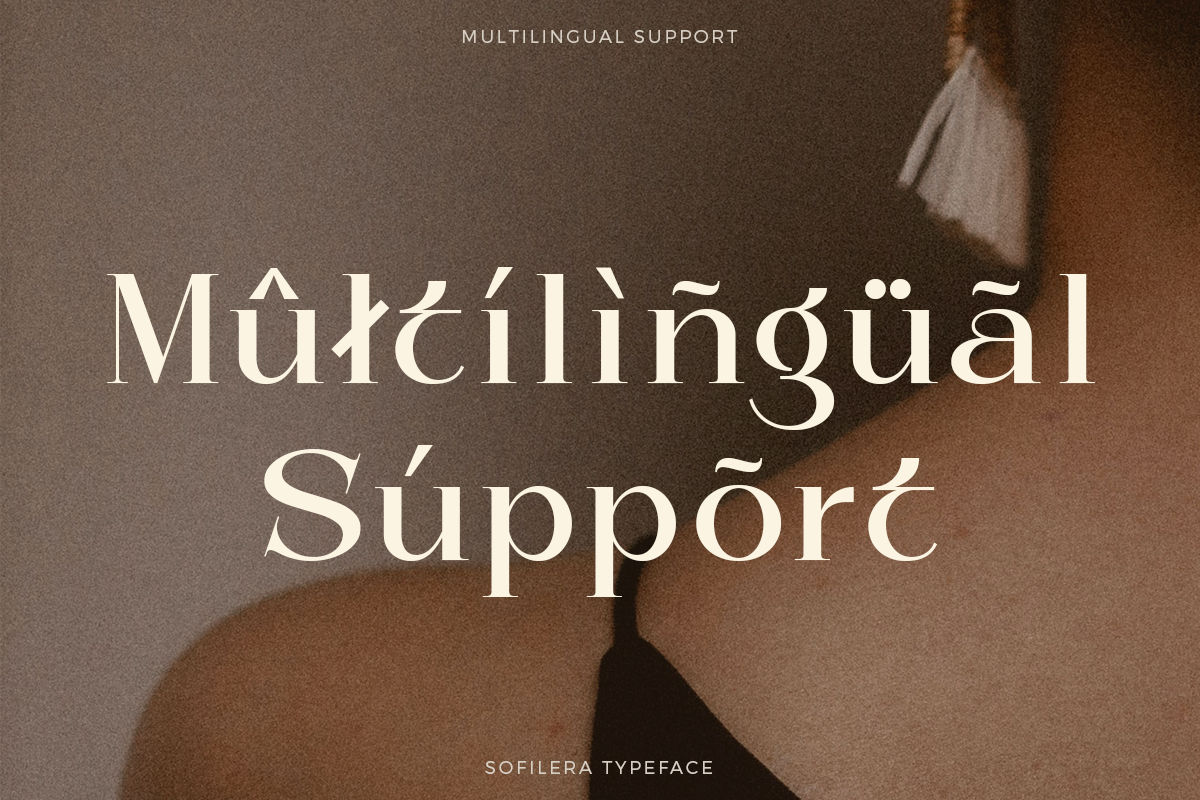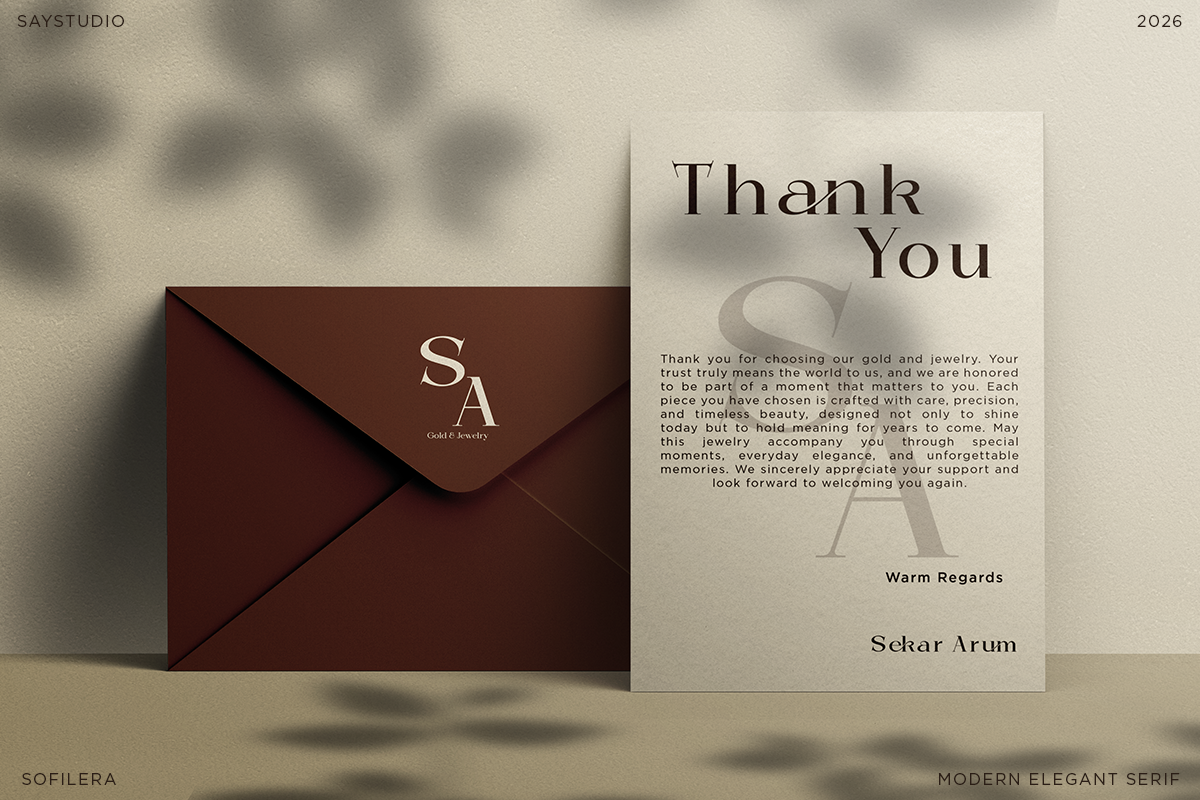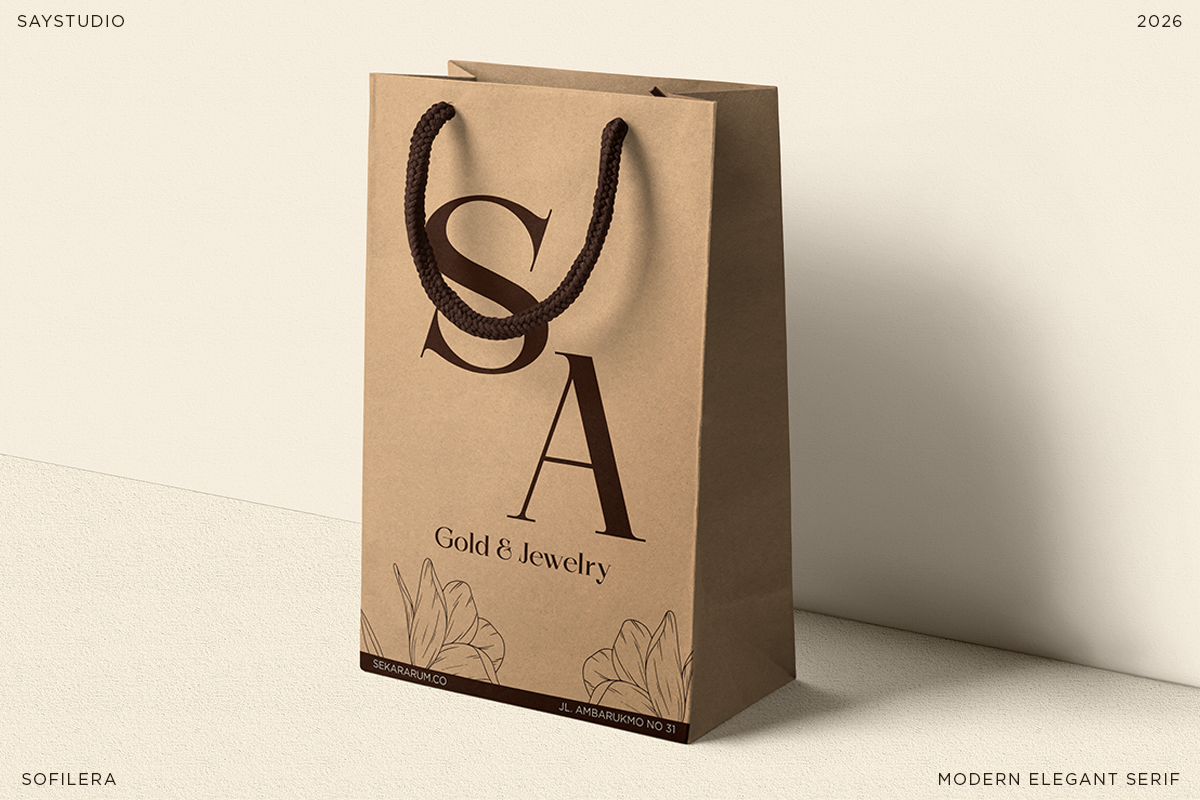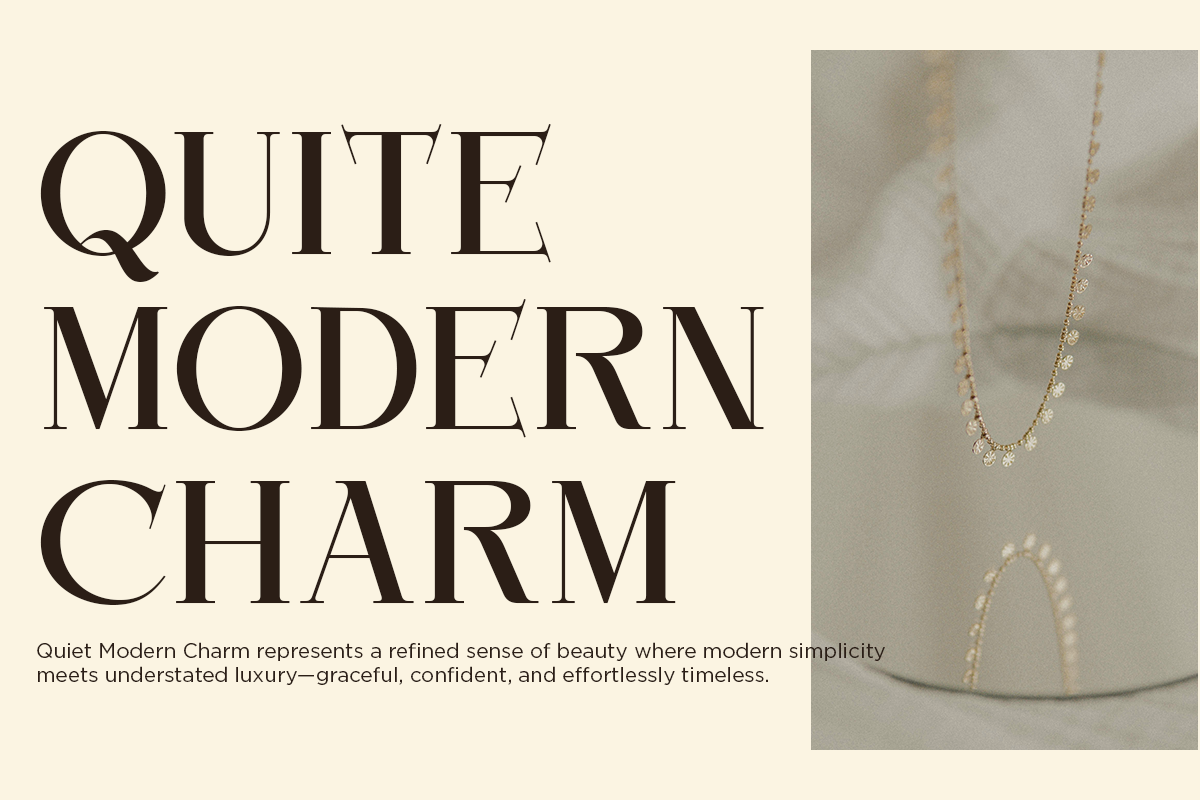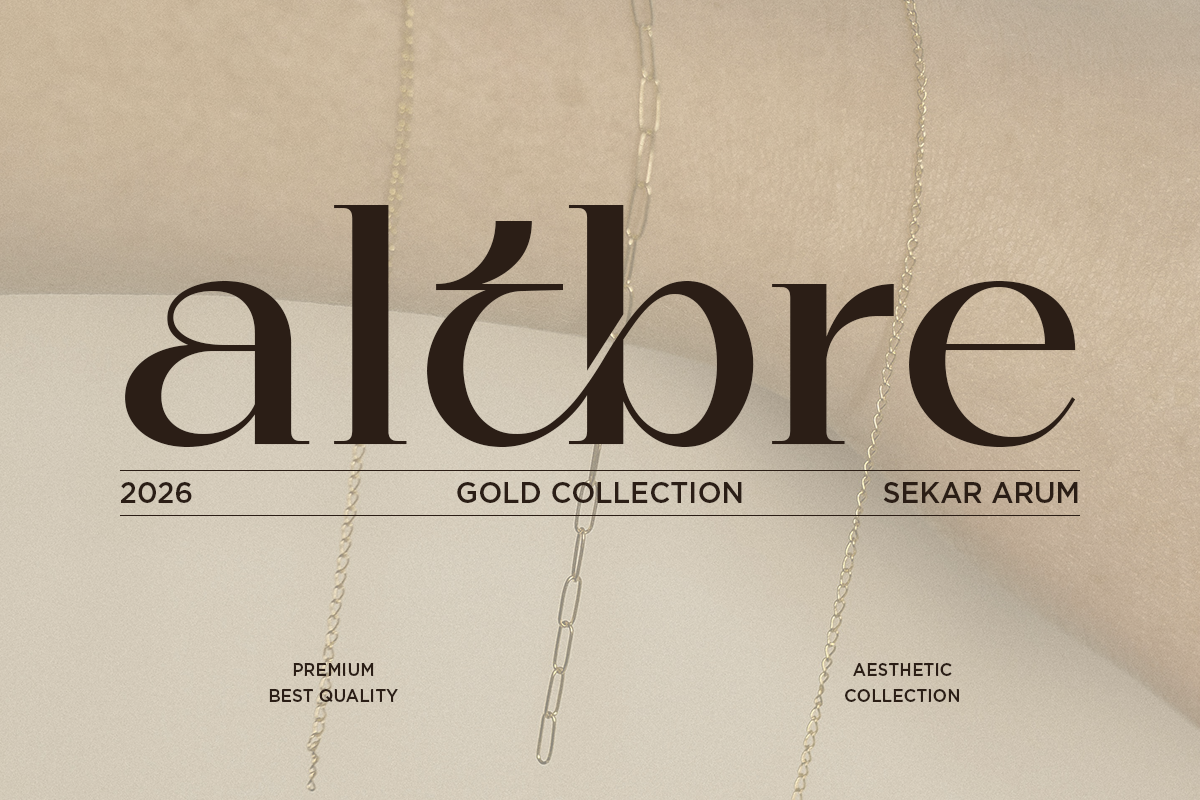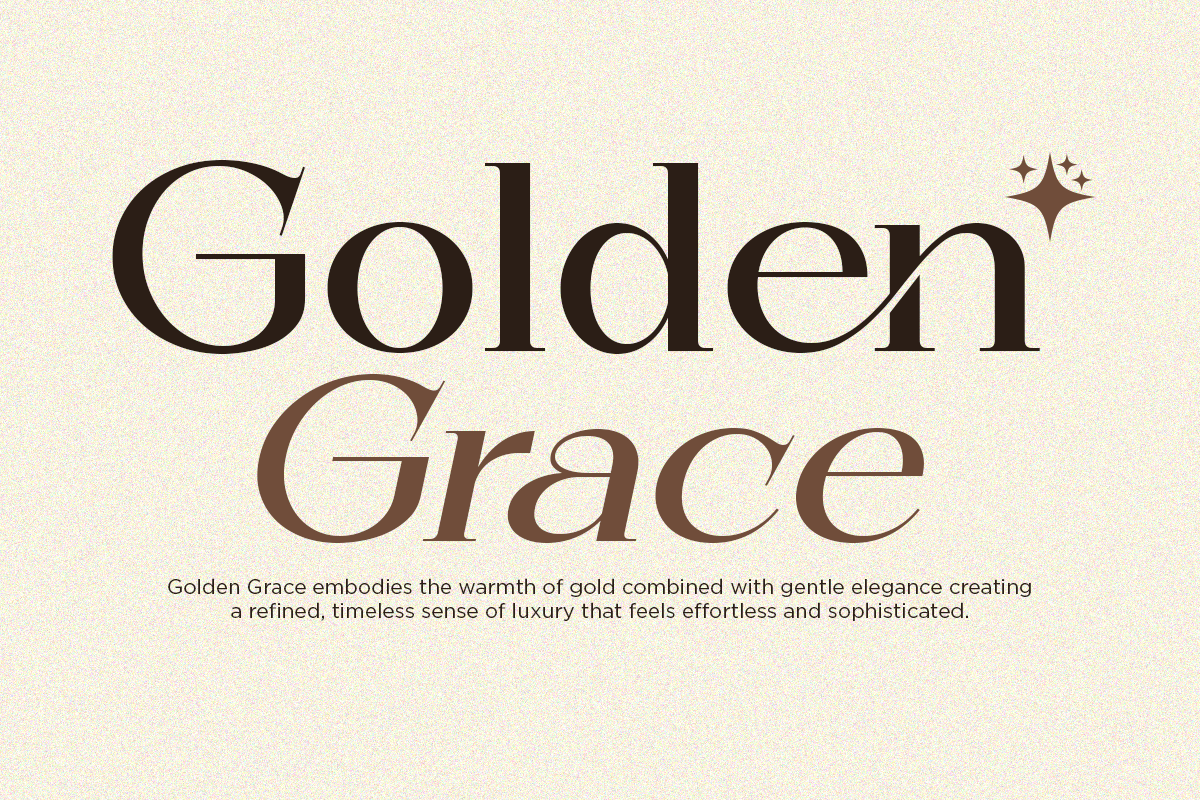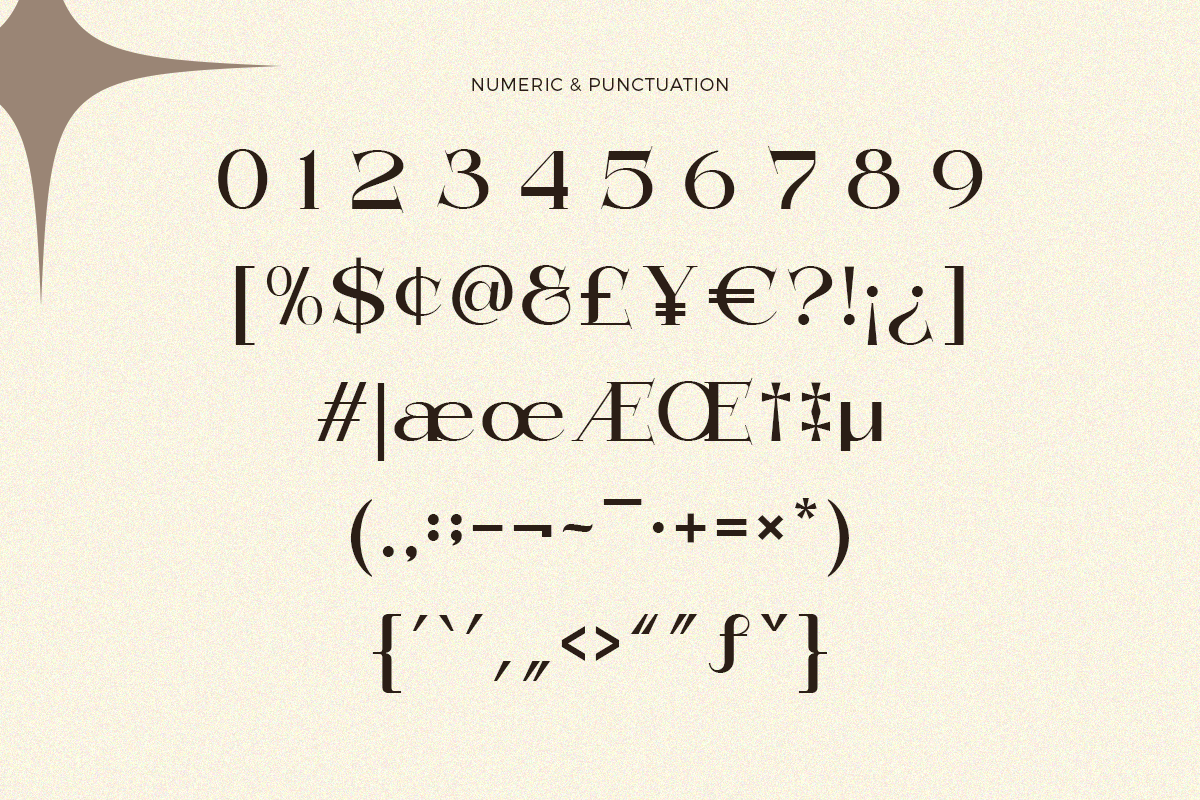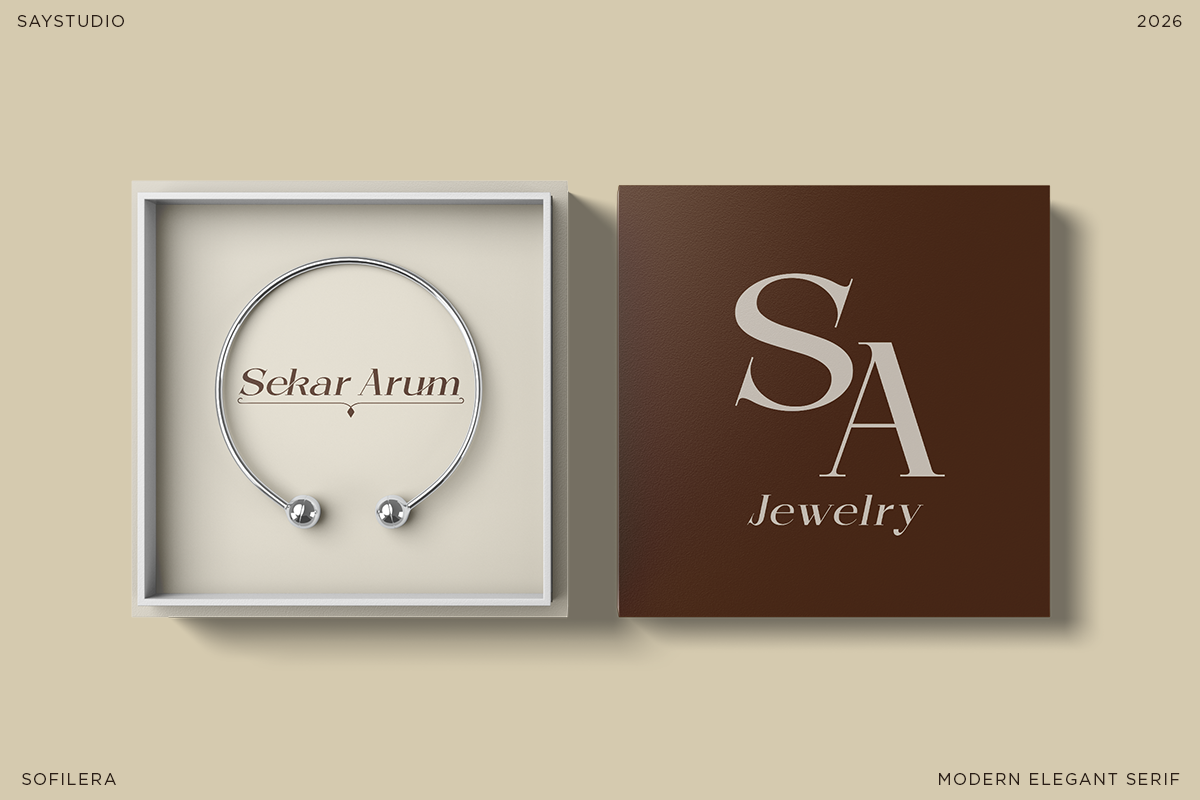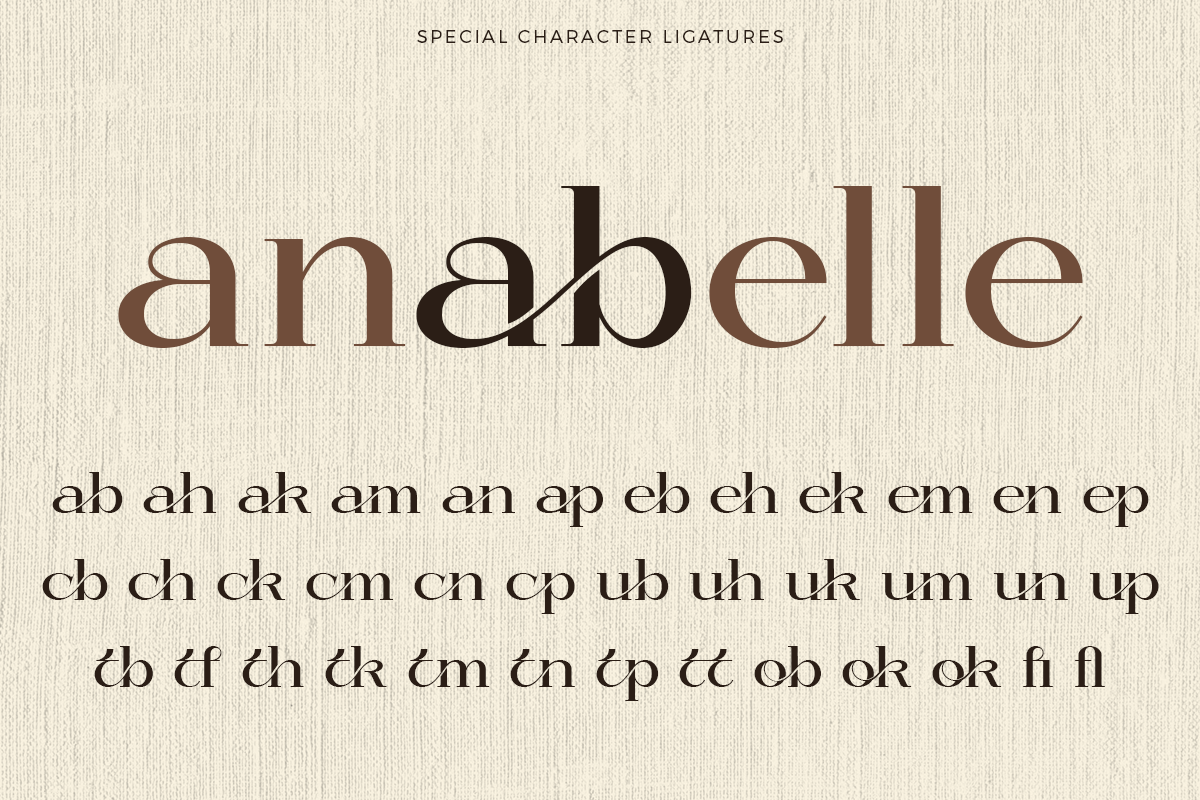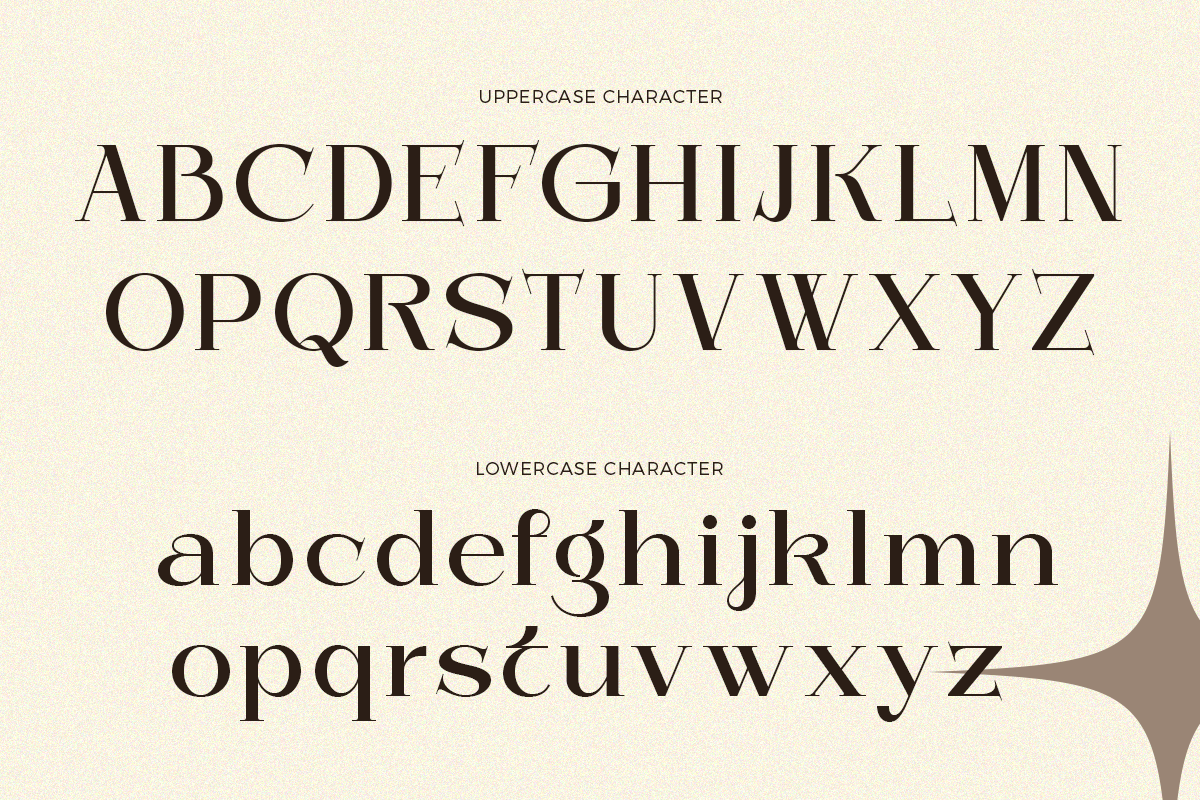
Sofilera - elegant modern serif
Sofilera is an elegant modern serif designed to express refinement, femininity, and contemporary luxury. Inspired by high-end fashion editorials and timeless beauty, this typeface blends soft curves with confident serif details, creating a graceful yet modern visual presence that feels premium and expressive.
Crafted with balanced proportions and smooth contrast, Sofilera performs beautifully in both large headlines and refined display settings. Its stylish ligatures and clean letterforms add character without sacrificing readability, making it ideal for branding, editorial layouts, luxury packaging, wedding designs, and upscale marketing materials.
Whether you’re building a fashion brand, editorial magazine, cosmetic identity, or elegant logo, Sofilera delivers a sophisticated tone with modern versatility. This serif typeface is designed to elevate visual storytelling while maintaining clarity, style, and timeless appeal across digital and print media.